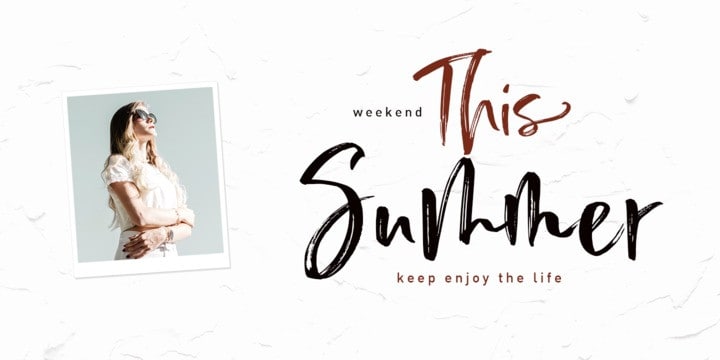
Angler Fish Brush Font
Glad to introduce you a new Angler Fish Brush Font, is a manual handwriting typeface with using a brush pen, which are arranged very neatly, so that it makes a font script, with a shape like a wavy calligraphy, modern, unique, smooth & cleans. This font is a typeface from the designer Fran Studio. It’s a new, very interesting brushed font. This font family is perfect for branding projects, logos, product packaging, posters, invitations, greeting cards, news, blogs, everything needing personal charm and more.
Angler Fish Brush Font offers OpenType features, some ligatures and swashes, initial and terminal letters, and International support for most Western Languages.